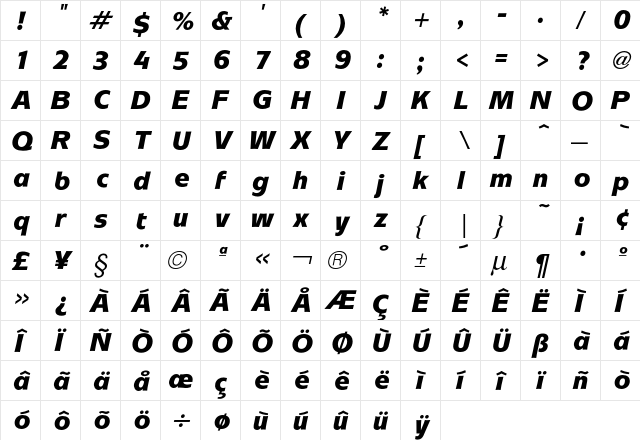
Mixage BlackItalic
Design Context for Mixage Typeface
Mixage offers clean, dependable letterforms without strong stylistic allegiance, making it a practical choice for designers who need flexibility. Its italic angle brings a sense of urgency and motion to the letterforms.
Pro Tip: Try Mixage for annotation and caption copy alongside an upright companion — the contrast in angle creates a dynamic but ordered typographic system.